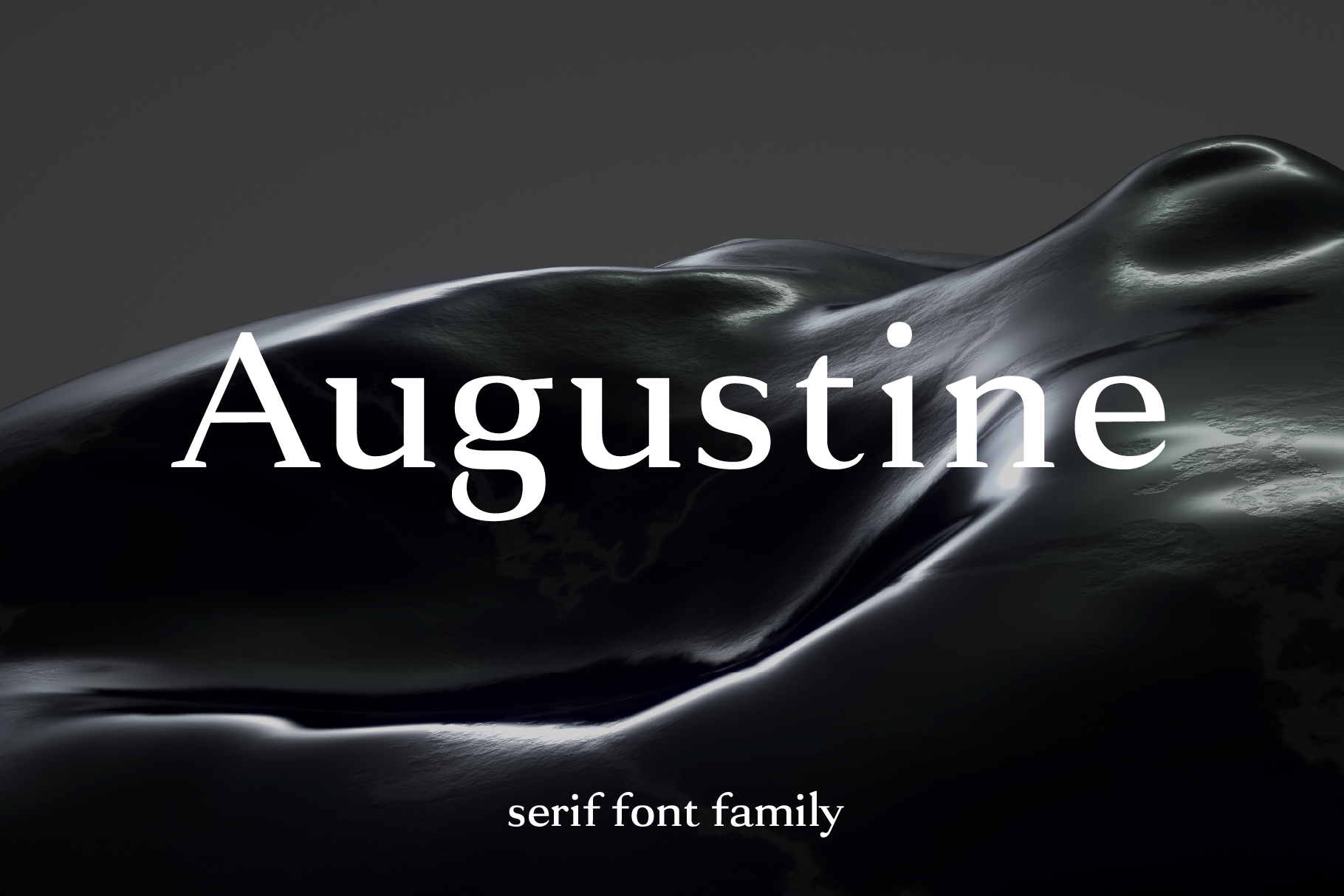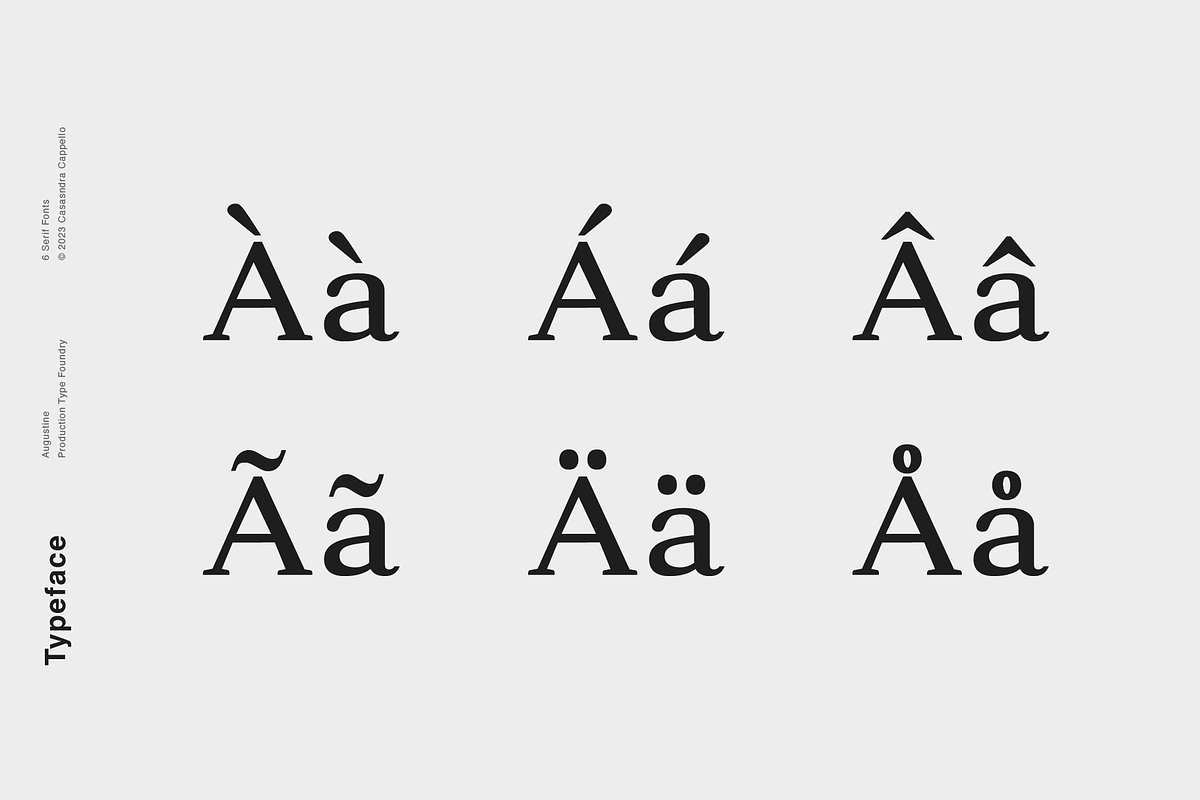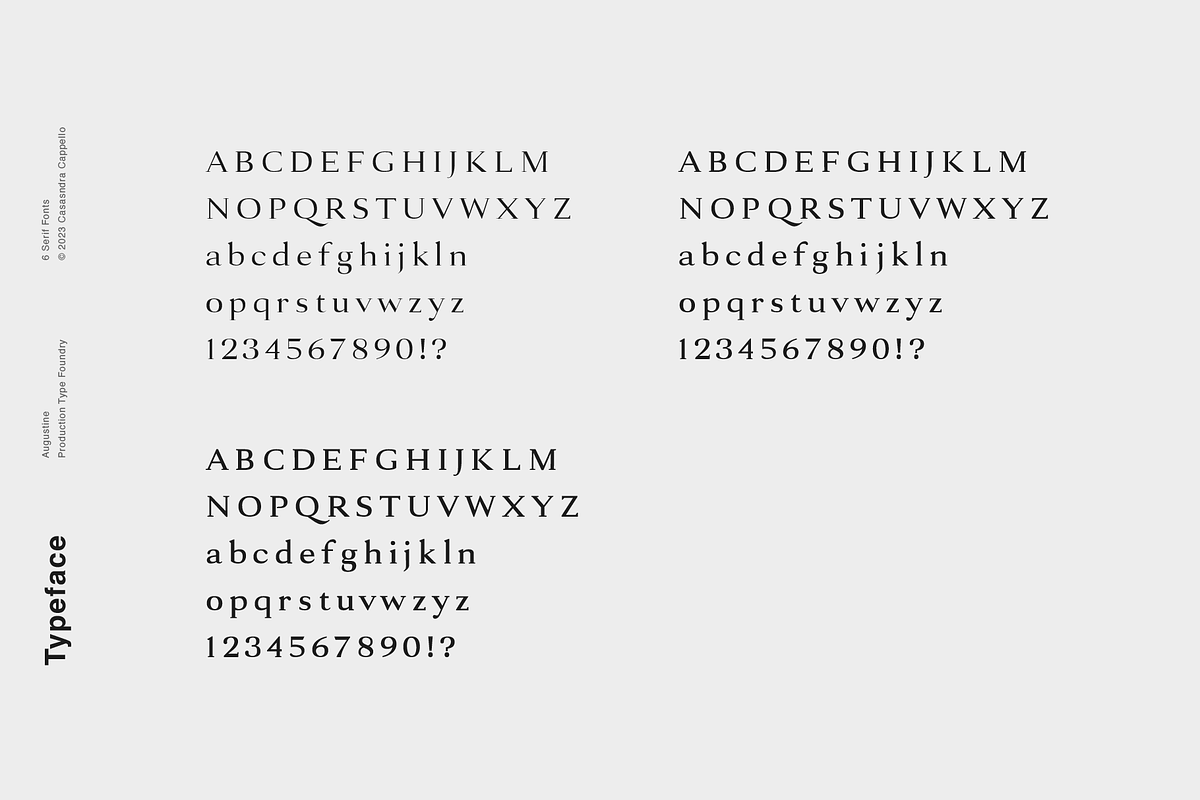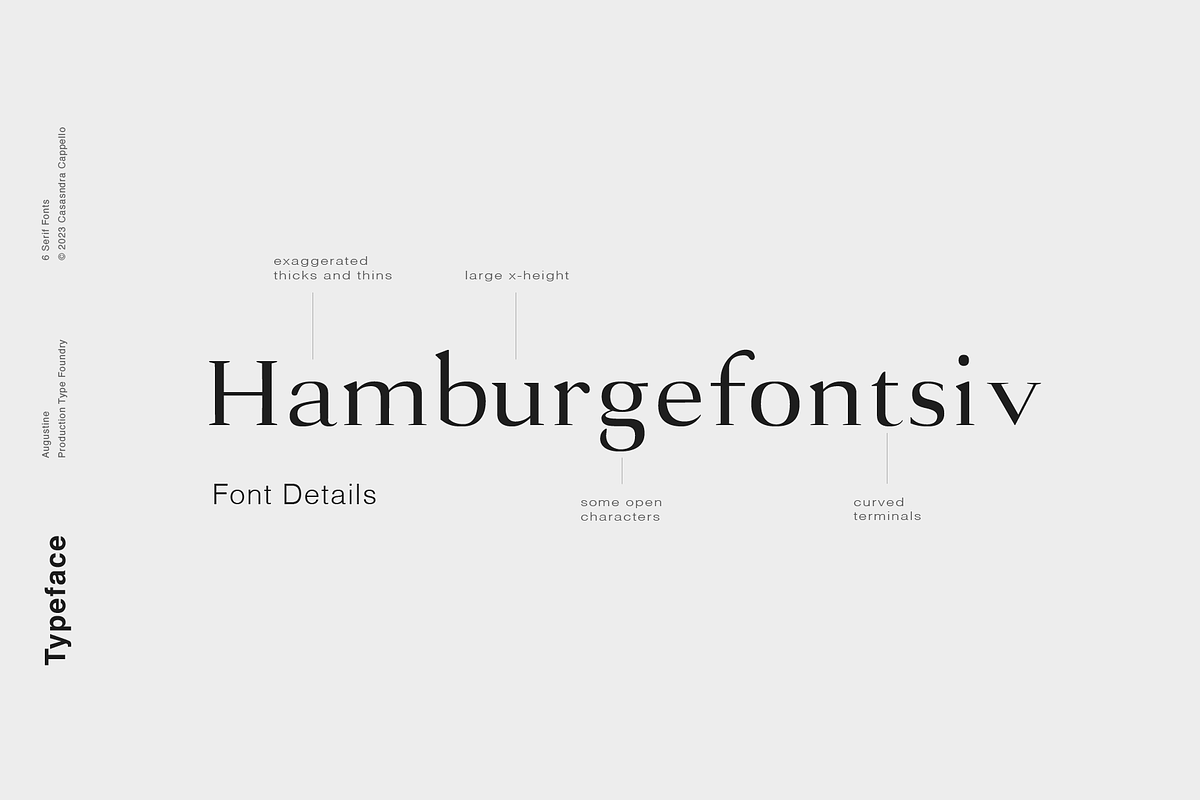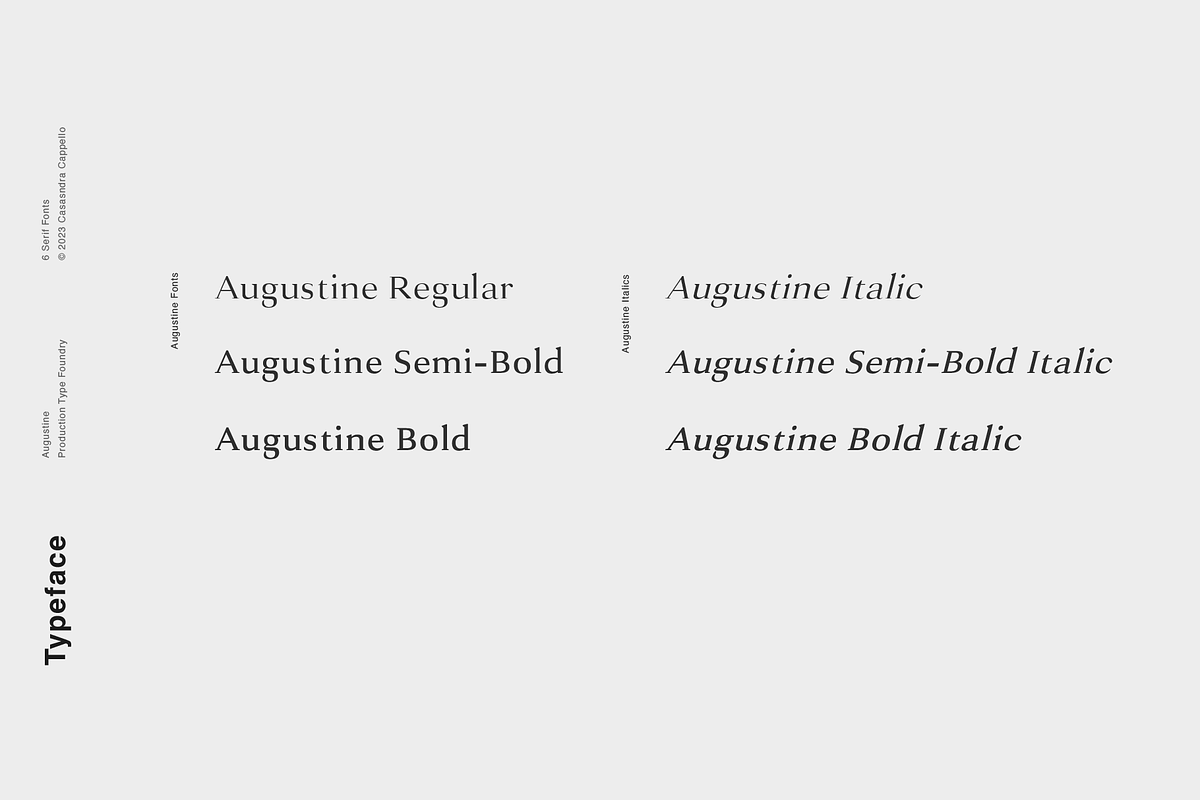
Augustine - A Strong Serif Typeface
Augustine is a strong, roman, serif typeface. This font family is perfect for headers and body copy. This font family includes all Latin characters (including accents), numbers, special characters, and punctuation.
Augustine includes six fonts in OTF format: three weights and three italics.